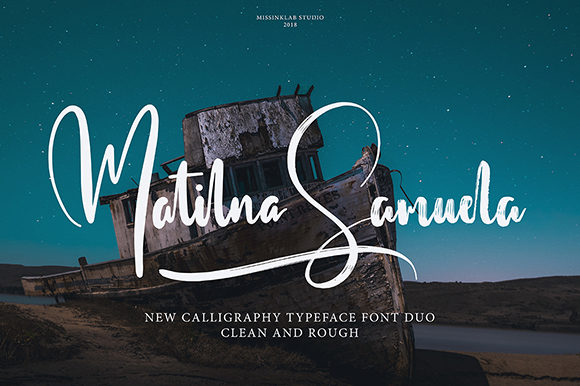
Introducing Matilna Samuela Font, an enchanting creation by Pineungtype & Missinklab, designed to captivate your senses with its modern and lovely style. This exquisite script font radiates an aura of authenticity, ready to infuse your designs with a touch of elegance and charm.
Matilna Samuela possesses an irresistible allure that transports you to a world of boundless creativity. It's a dance of flowing lines and graceful curves, each stroke brimming with personality and expression. Whether you seek to craft elegant logos, heartfelt invitations, or stunning social media posts, this font will elevate your designs to new heights.
With Matilna Samuela, you'll discover a universe of possibilities. Imagine your words dancing across the page, each letter a work of art, conveying a tapestry of emotions and enchanting the hearts of your readers. Watch as your designs blossom into captivating visual masterpieces, sure to leave a lasting impression.
Unleash your inner artist and embark on an extraordinary creative journey with Matilna Samuela. Its versatility knows no bounds, catering to a myriad of design projects. From ethereal wedding stationery to captivating branding materials, this font will effortlessly transform your ideas into extraordinary realities.
Embrace the allure of Matilna Samuela, a font that speaks to the soul. Allow its beauty to permeate your designs, evoking emotions and leaving an indelible mark on your audience. Experience the transformative power of a truly exceptional font, ready to ignite your creativity and redefine your design horizons.